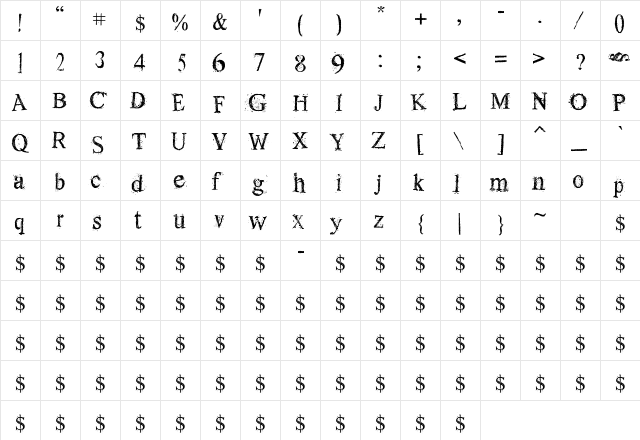
Old Dreams Regular
| Designer | Galdino Otten |
Design Context for Old Dreams Typeface
Old Dreams is a composed and adaptable typeface that performs quietly and consistently across a wide range of design contexts.